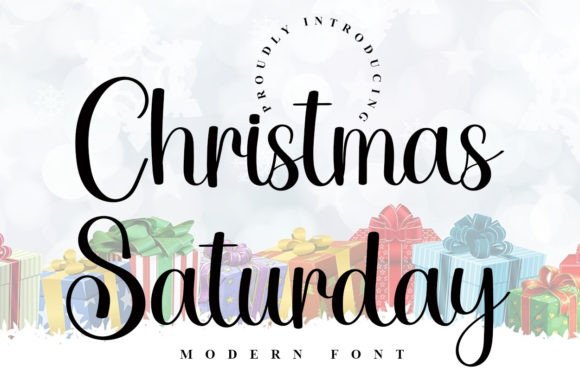
Introducing the Christmas Saturday Font, your ticket to creating captivating designs that will leave a lasting impression! Designed by the talented ABBAsalam, this script font is the perfect choice for anyone looking to add a touch of warmth and friendliness to their projects.
With its sweet and unique handwritten style, Christmas Saturday Font brings a sense of creativity and excitement to any design it graces. Whether you're designing for a primary school project, a holiday-themed event, or simply want to add a playful twist to your creations, this font has got you covered.
Let your imagination run wild with the endless possibilities that Christmas Saturday Font offers. Capture the attention of your audience and evoke emotions with every letter and word. This font is more than just a tool; it's a gateway to storytelling and expression.
Crafted with utmost care, Christmas Saturday Font stands out from the crowd with its natural curves and charming details. Each stroke is carefully designed to bring life to your words, making them jump off the page and leave a lasting impact. Say goodbye to dull and generic fonts, and embrace the beauty of handwritten perfection.
Looking to create eye-catching posters, invitations, or social media graphics? Look no further! Christmas Saturday Font is here to elevate your designs and make them truly stand out. Its versatility allows it to adapt seamlessly to any project, making it the ultimate choice for both professionals and beginners alike.
In conclusion, Christmas Saturday Font is not just another font; it's a key that unlocks a world of creativity, warmth, and imagination. With its charming handwritten style, it's the perfect choice for primary school projects, holiday-themed designs, or any project that needs a touch of playfulness. Download Christmas Saturday Font today and let your designs shine like never before!